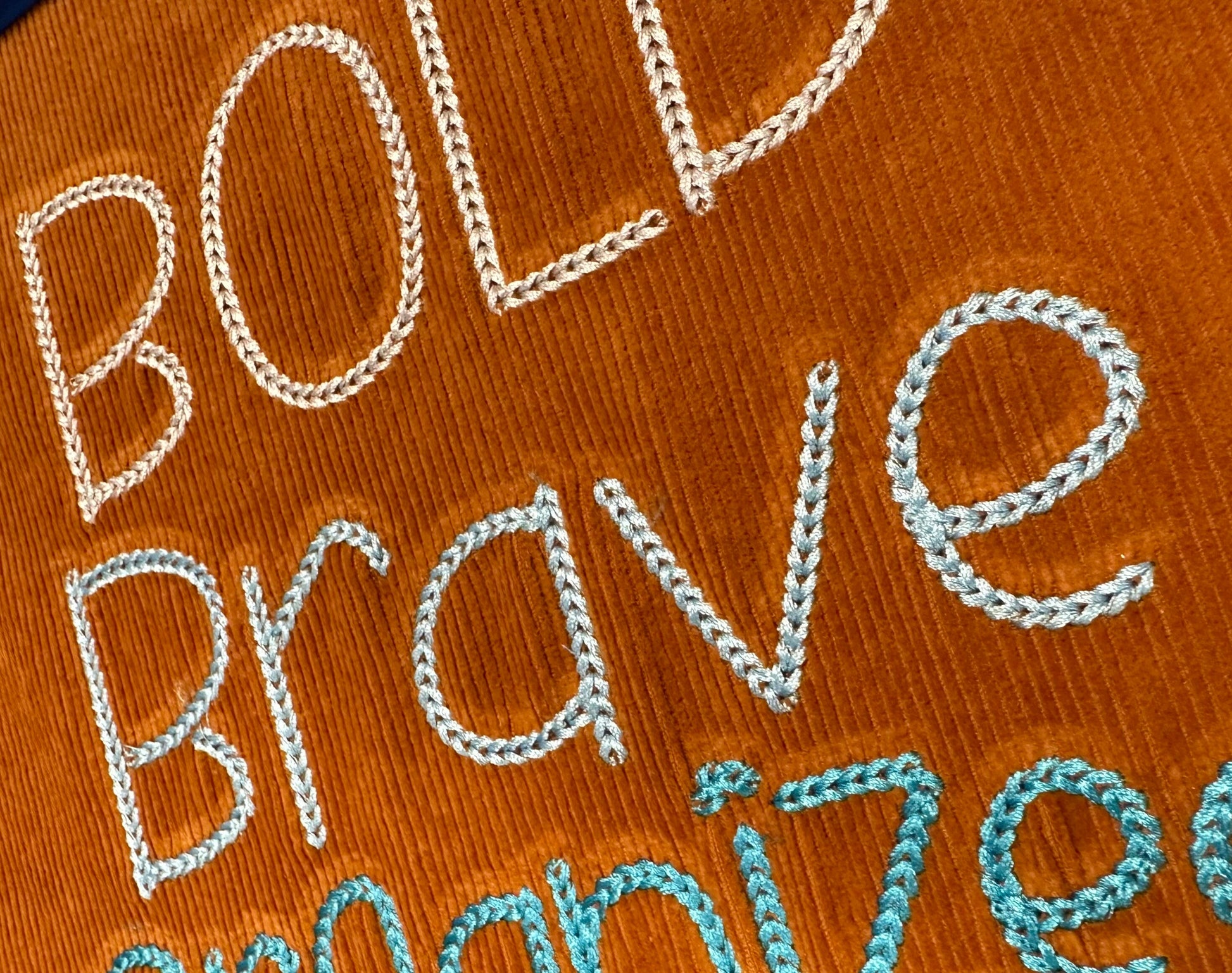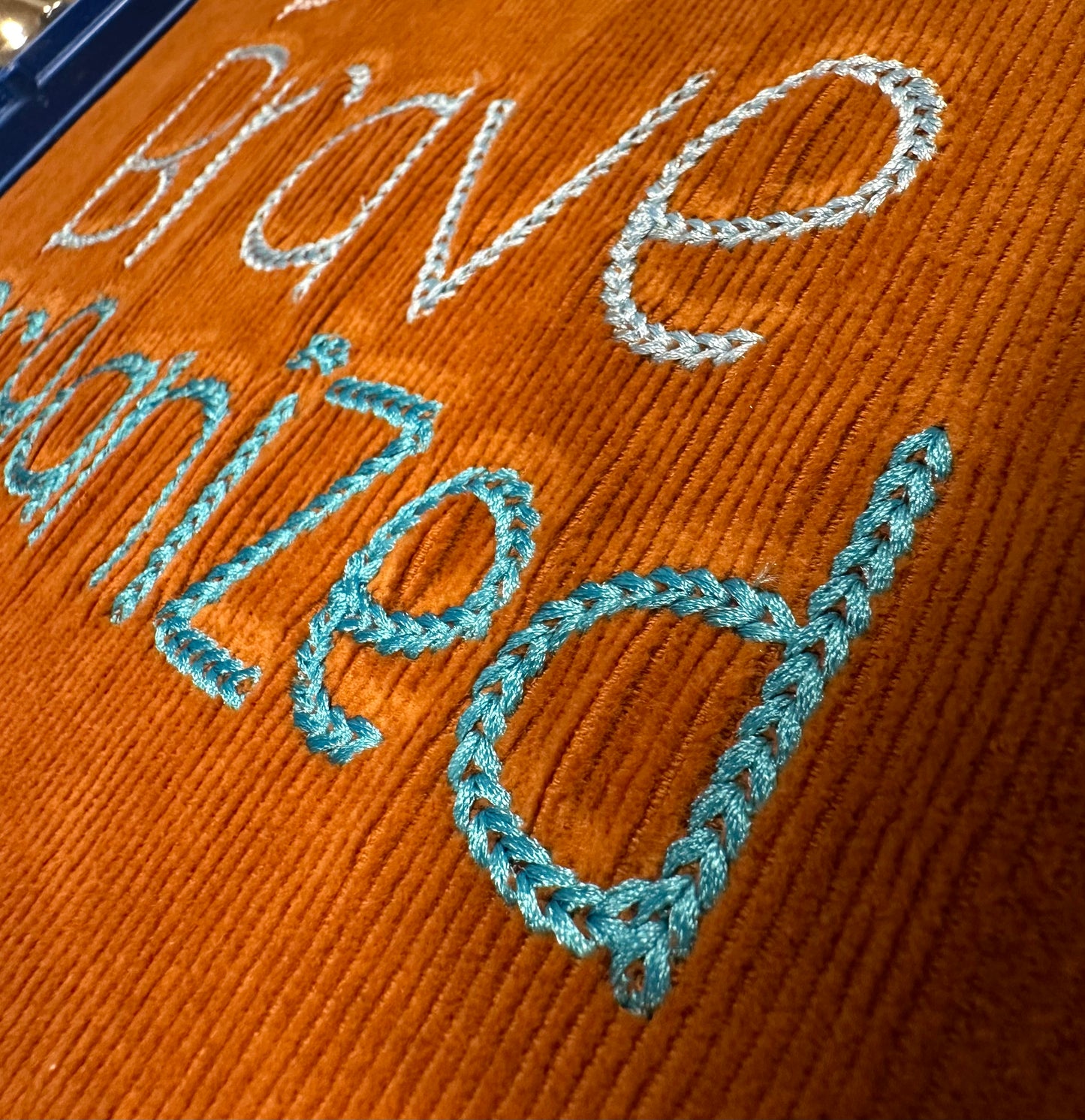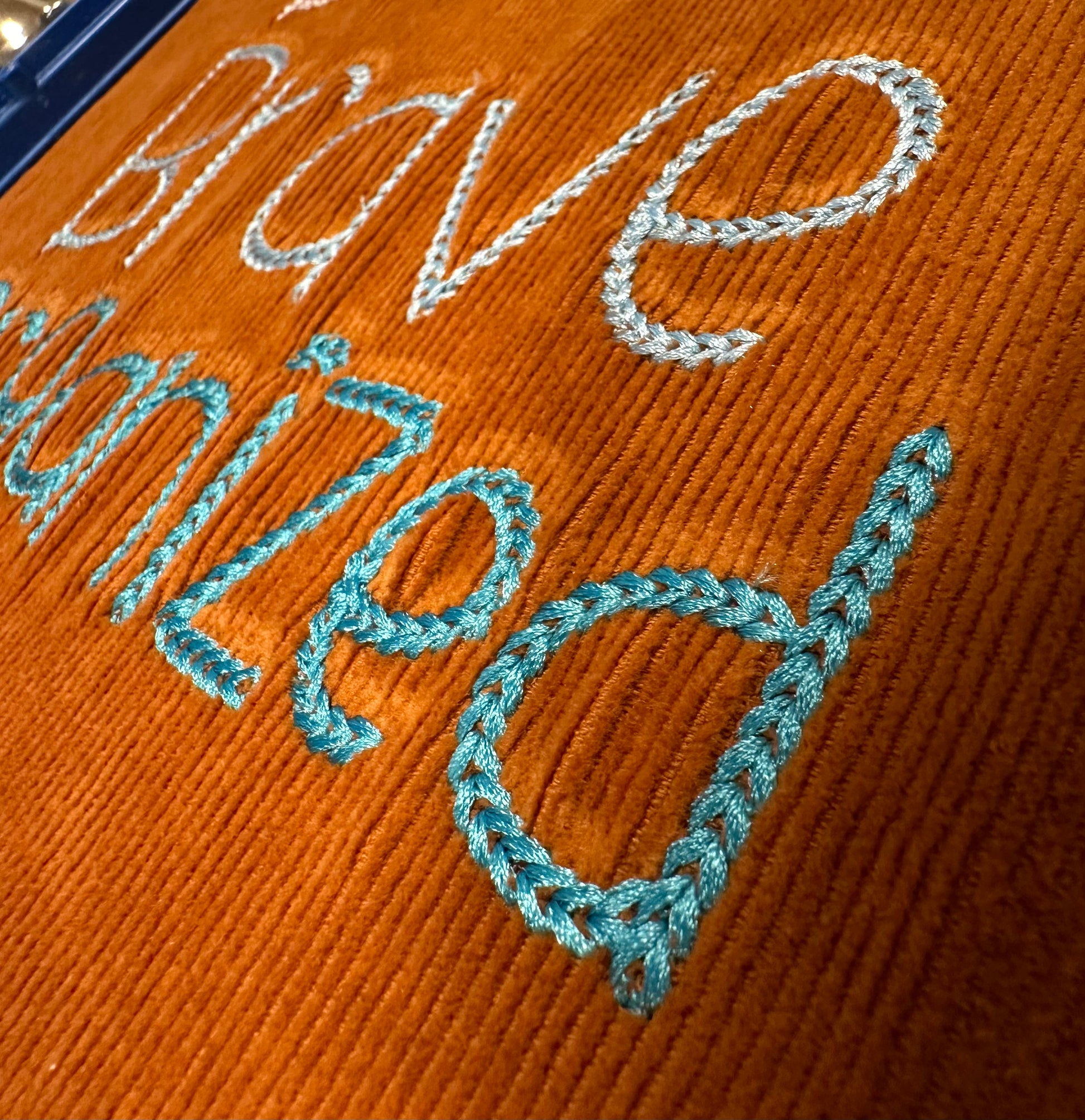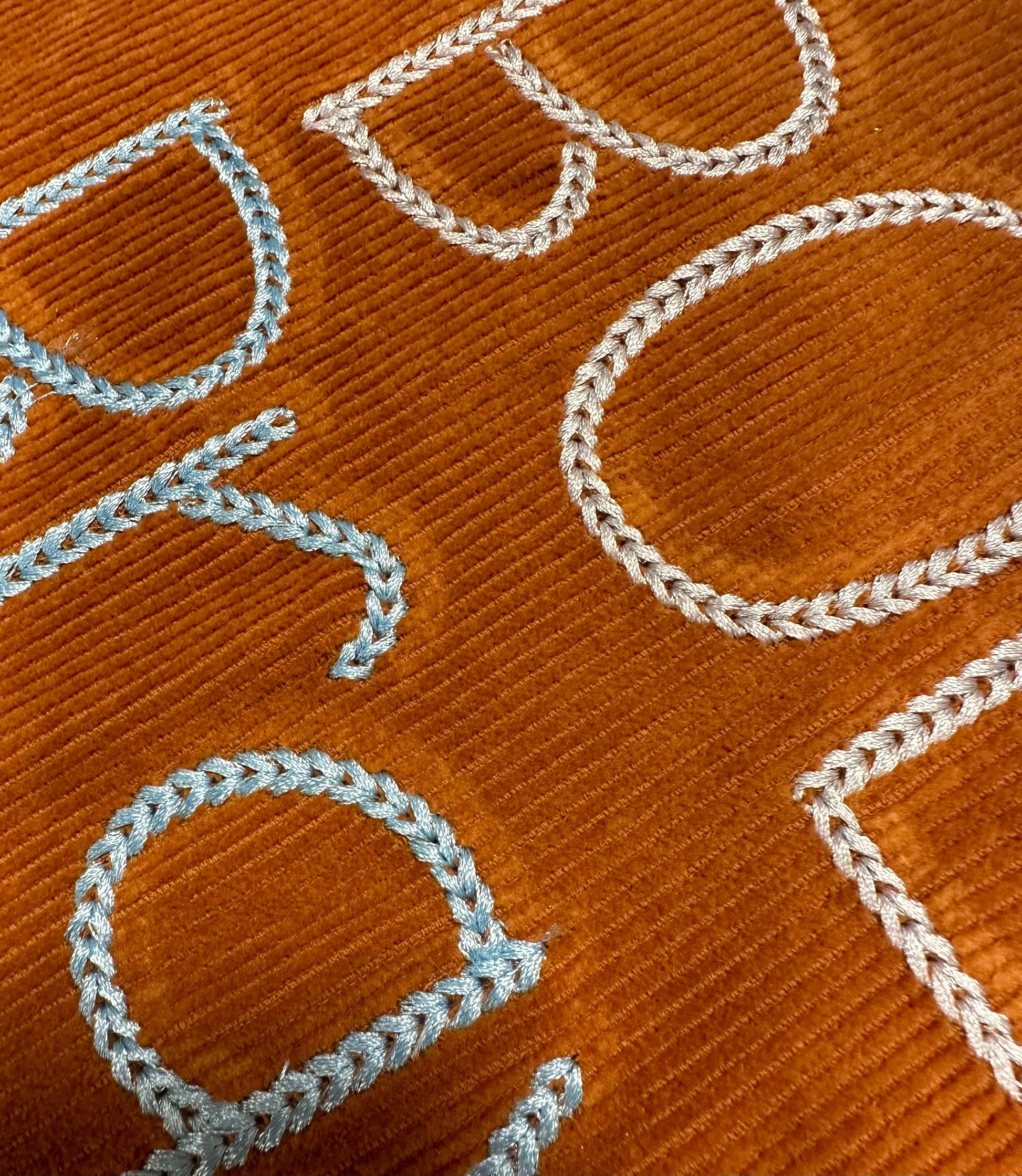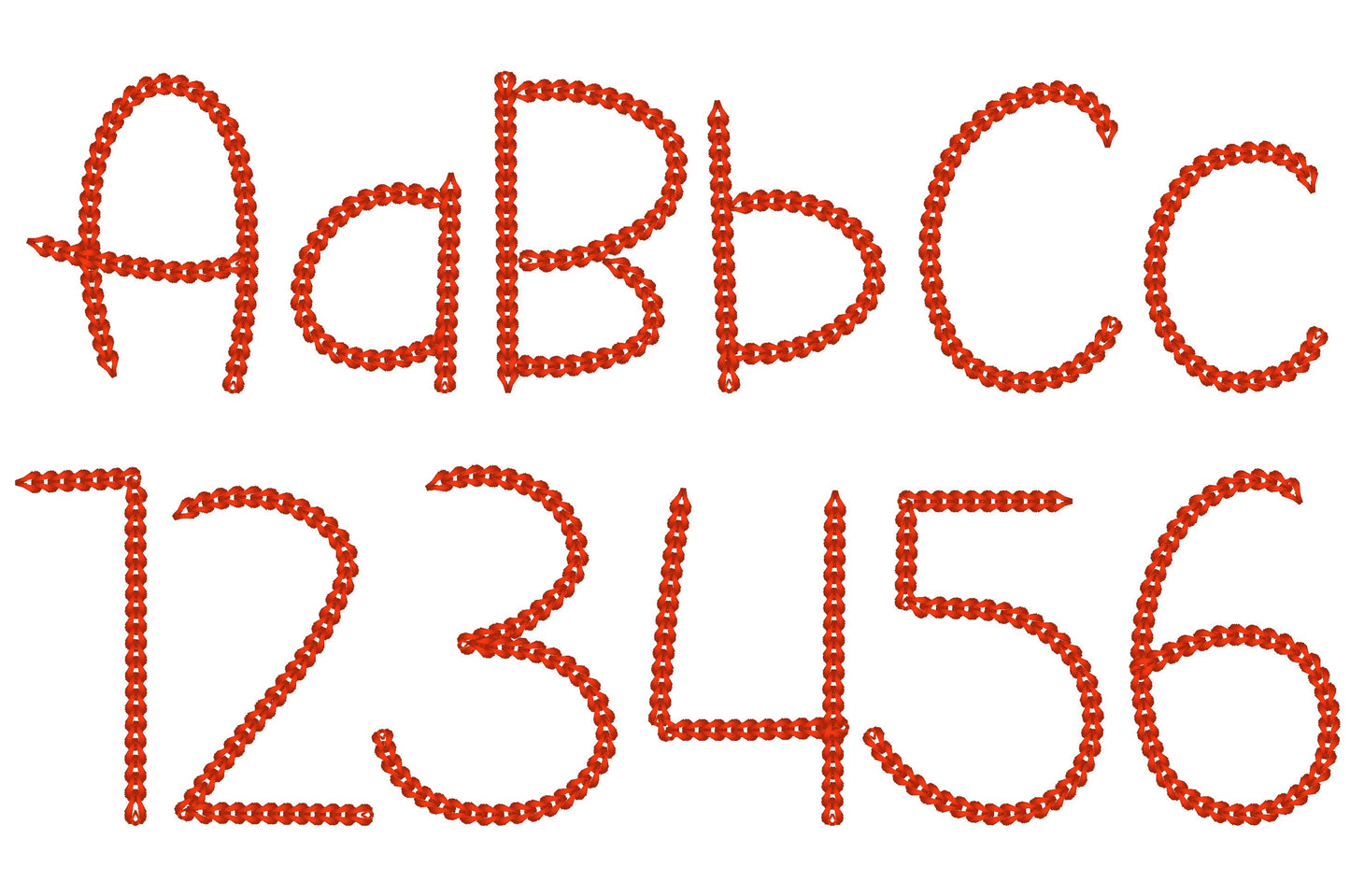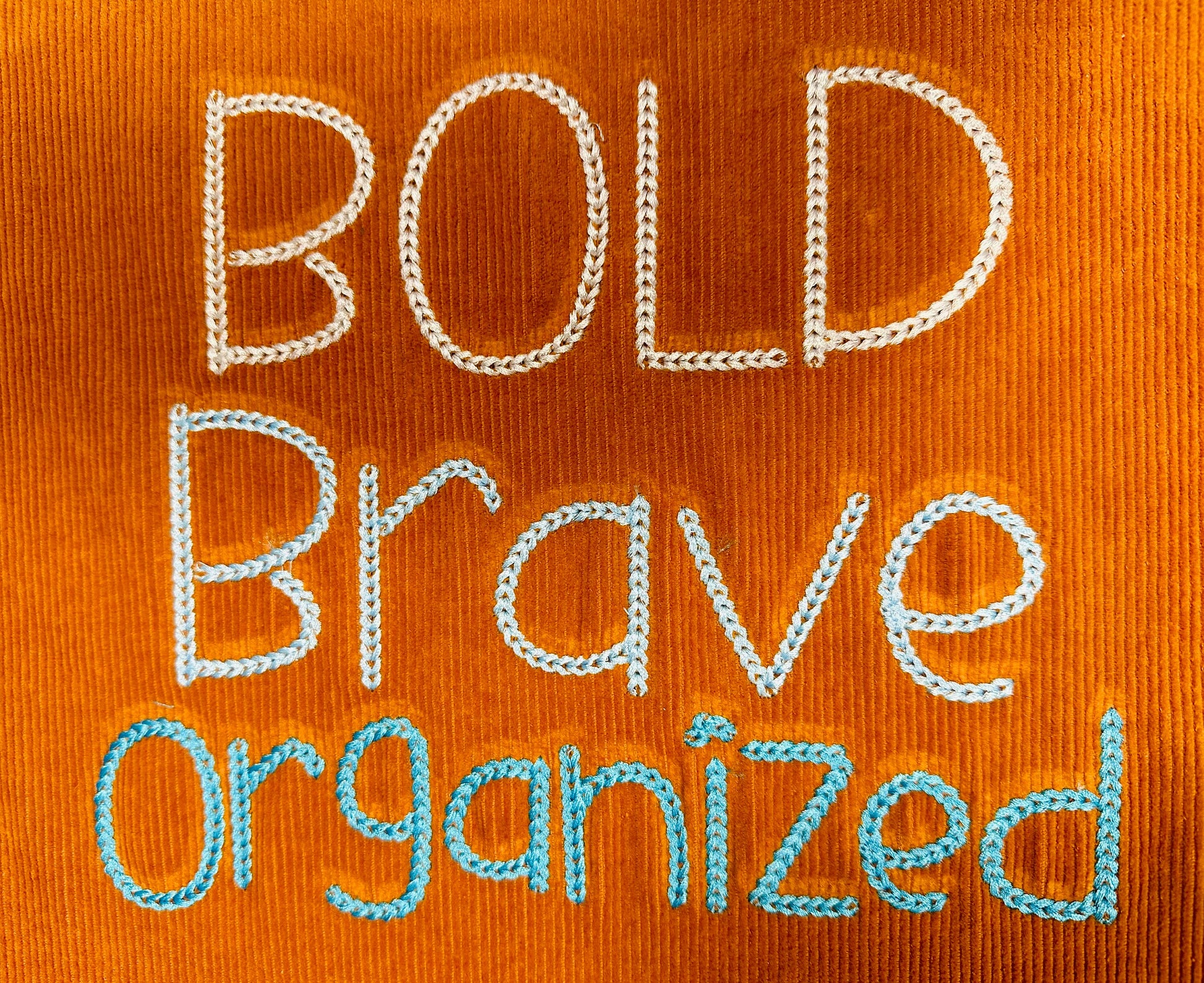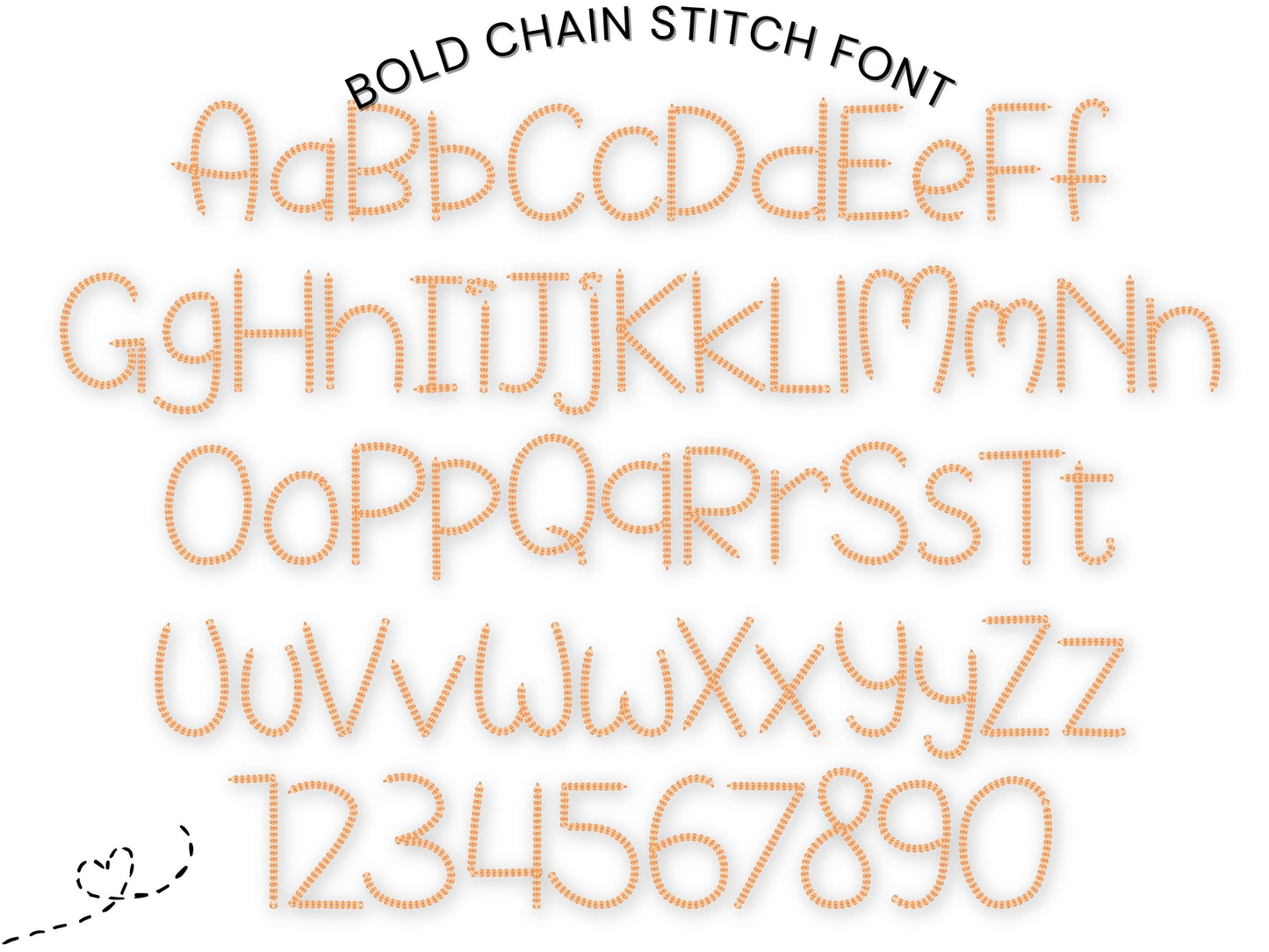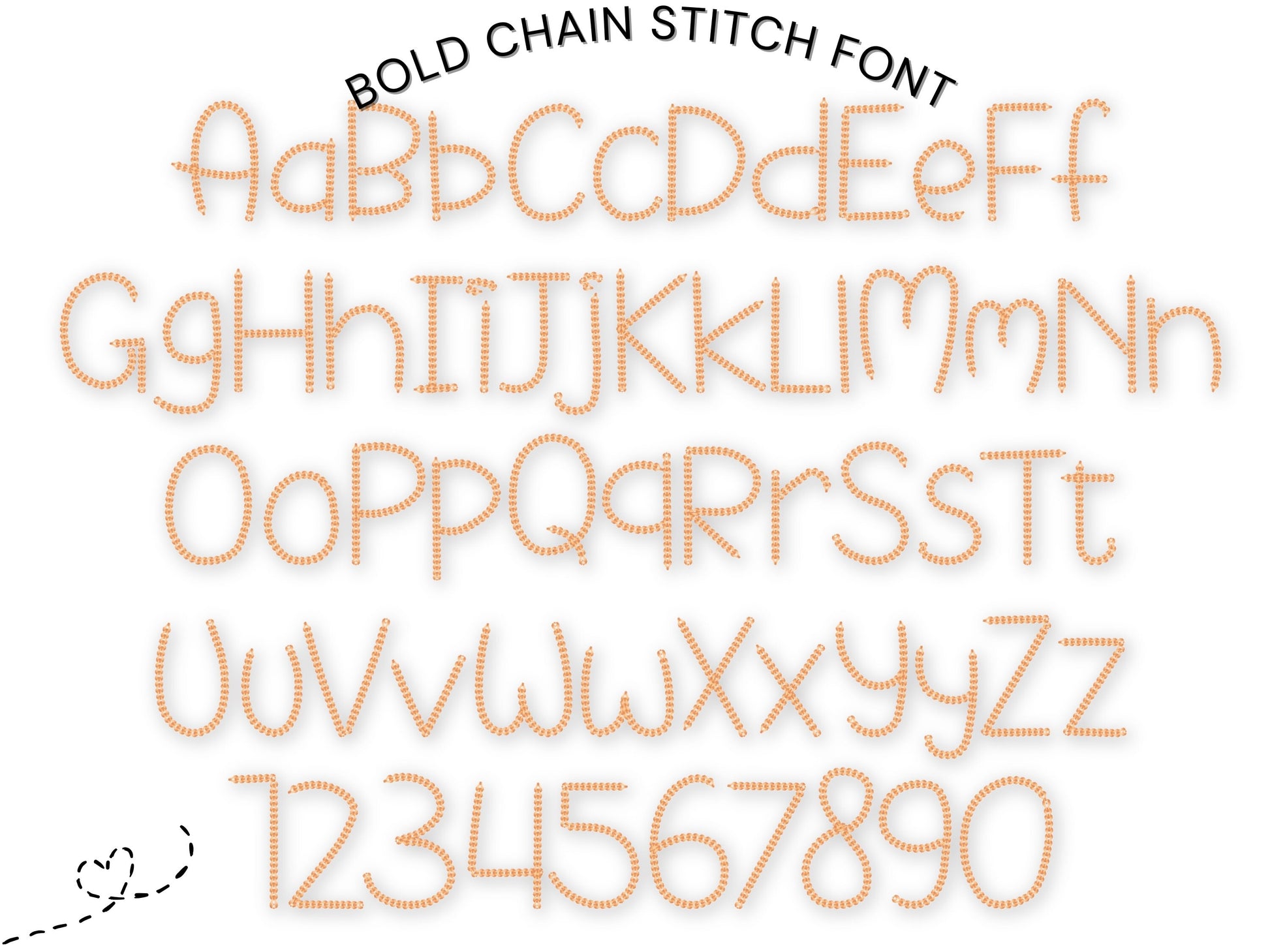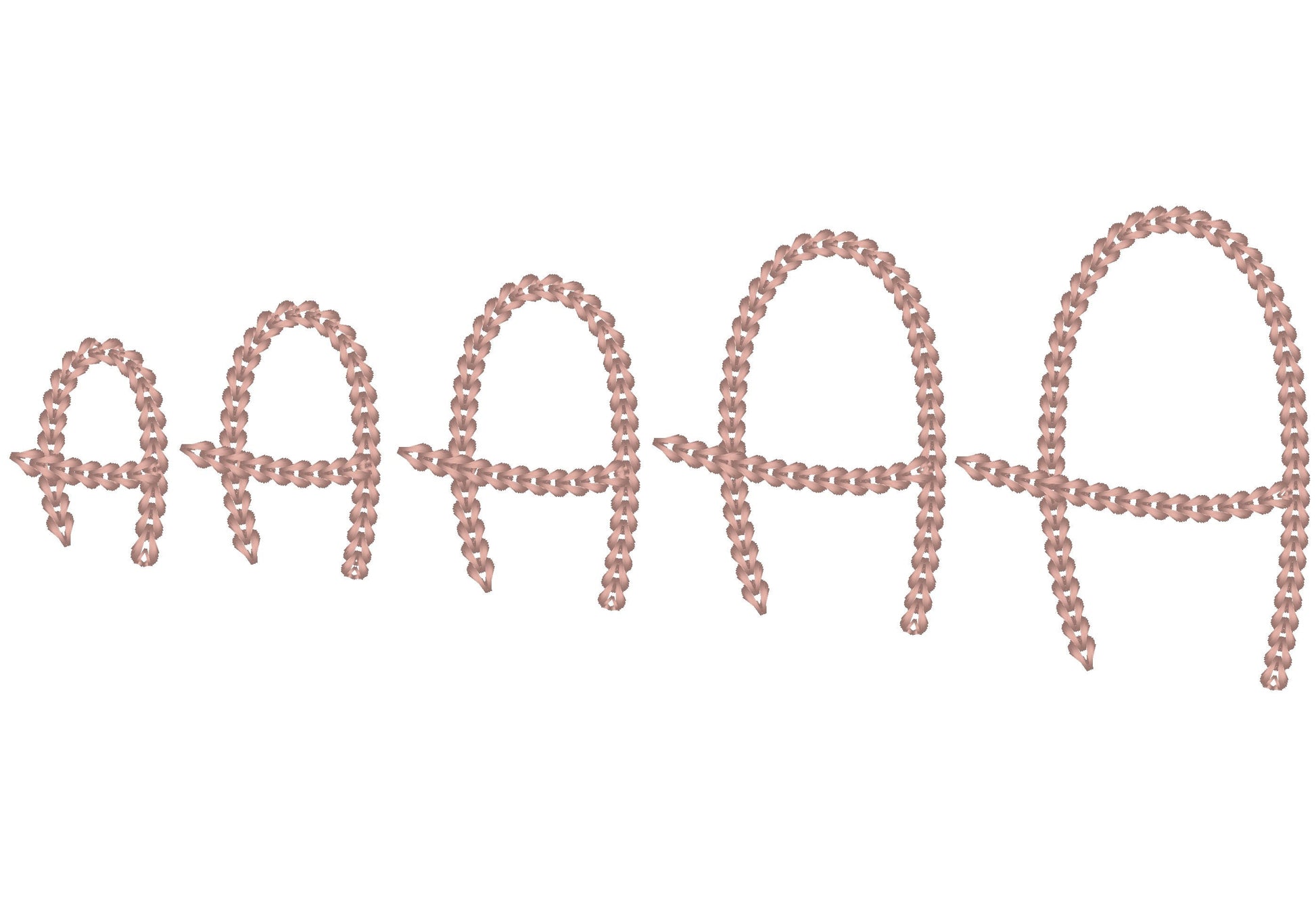
Or click to open the linkA bold, dense chain stitch font with a handmade knit look. Made for names on sweaters, sweatshirts, beanies and blankets.
Uppercase and lowercase letters and numbers 0 to 9. Five sizes: 1.5, 1.8, 2.2, 2.7 and 3.2 inches.